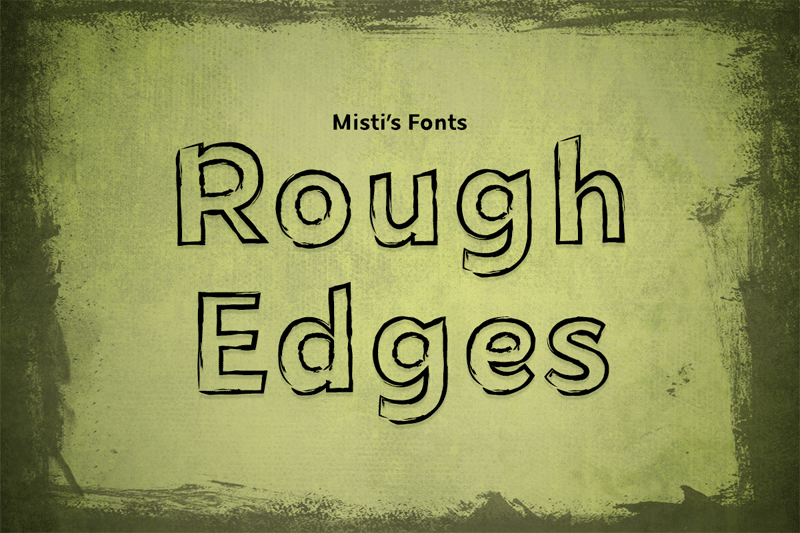
Preview and download Rough Edges Font. Created by Misti's Fonts in Fancy Eroded styles with Free for personal use license.
Rough Edges is a spooky outline font perfect for your Halloween projects. It would be great for shop logos and banners, advertisements, sublimation projects and so much more! Terms Of Use and Commercial Use: https://mistifonts.com/rough-edges/ |